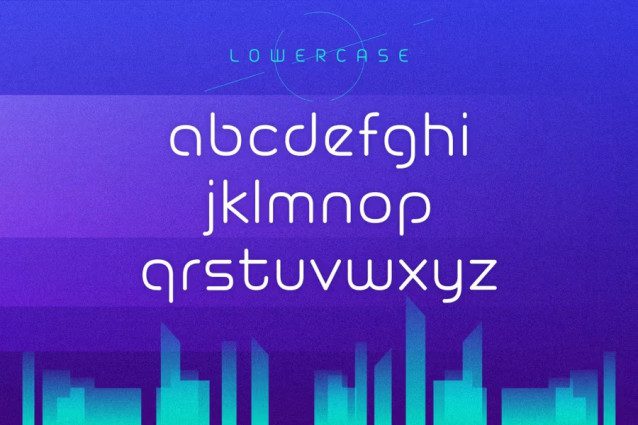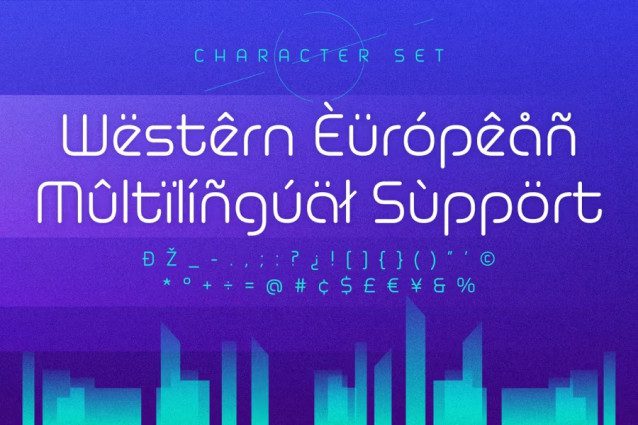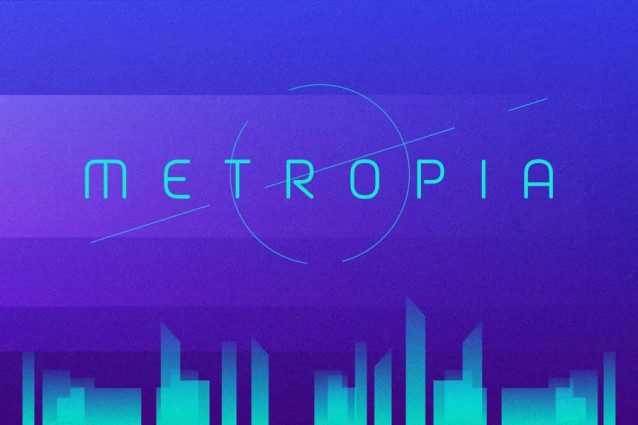
Metropia Font is a modern typeface with a geometric touch, that is perfect for headlines, display, video games, logotypes and much more.
Metropia Font
| Classification: | Display Fonts, Geometric Fonts, Modern Fonts |